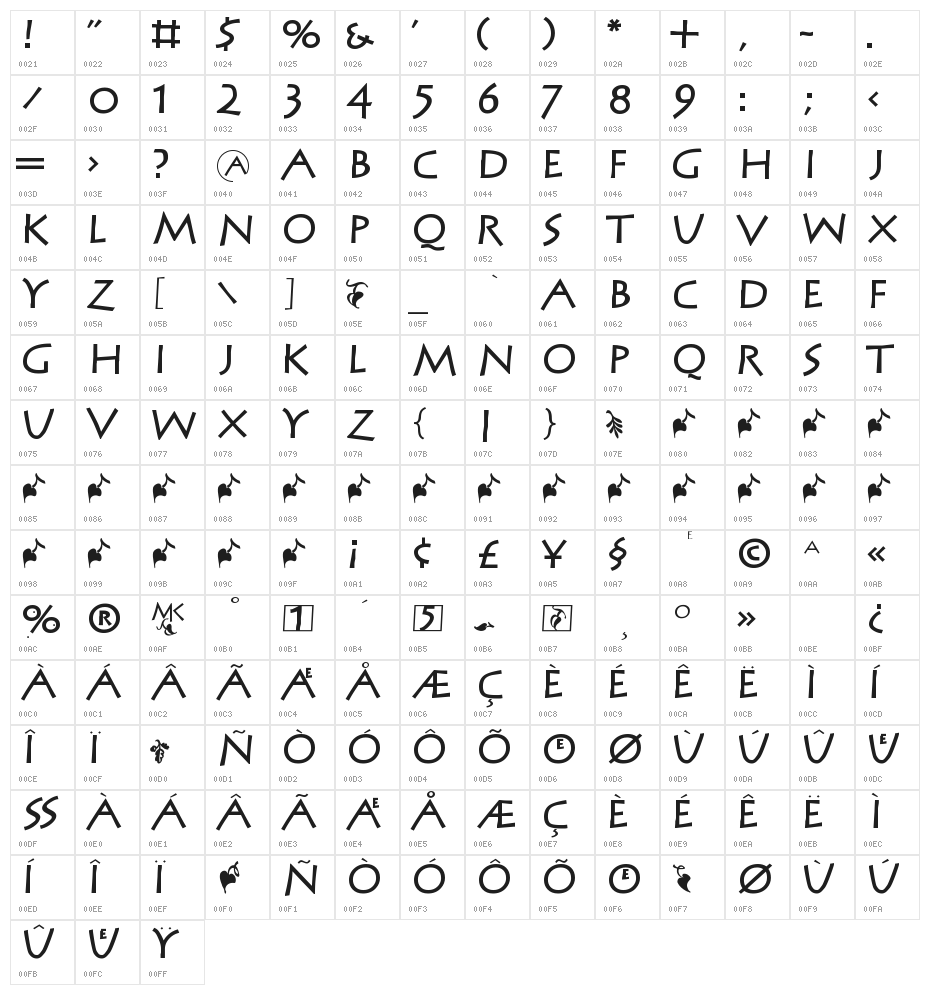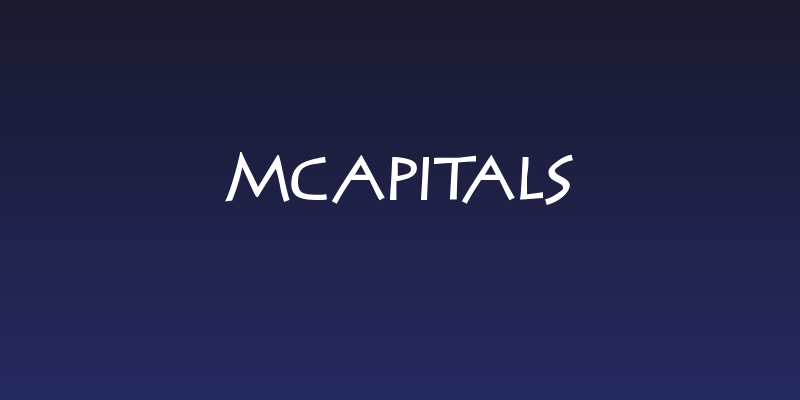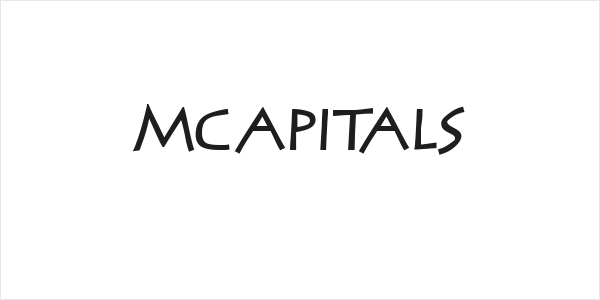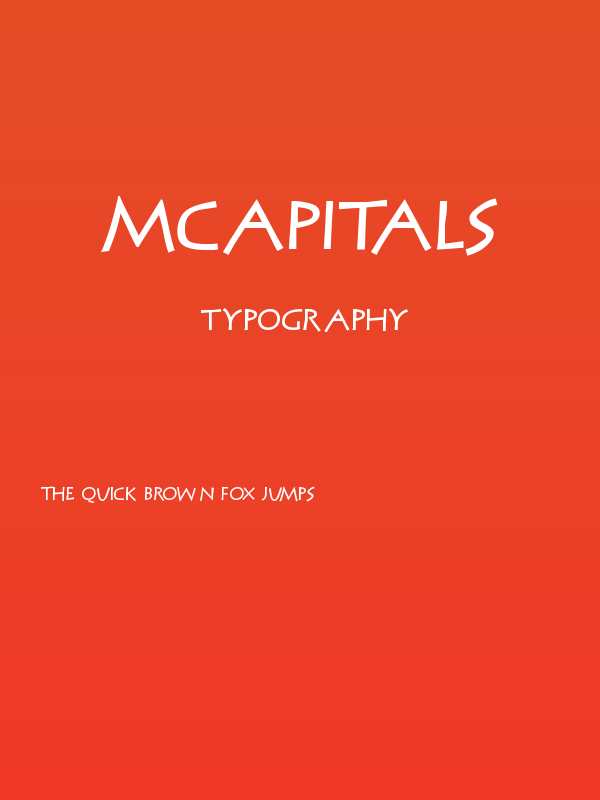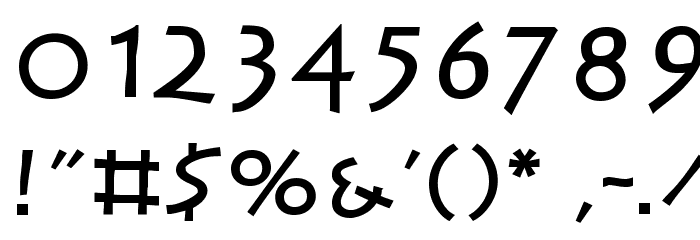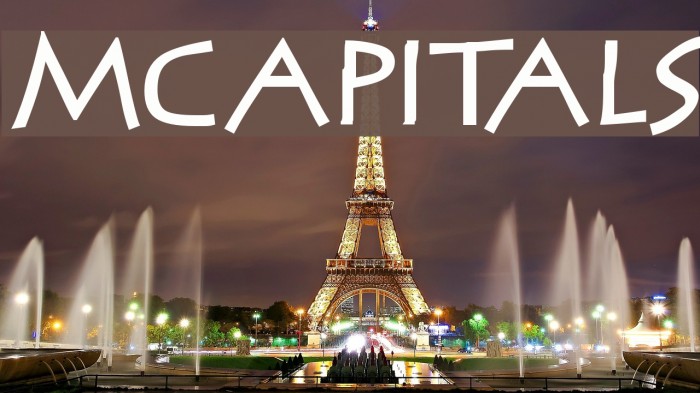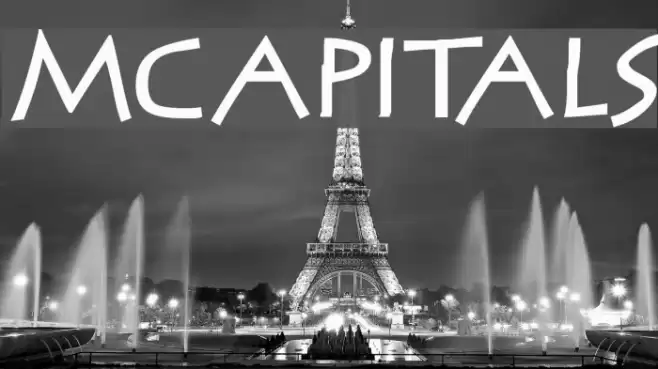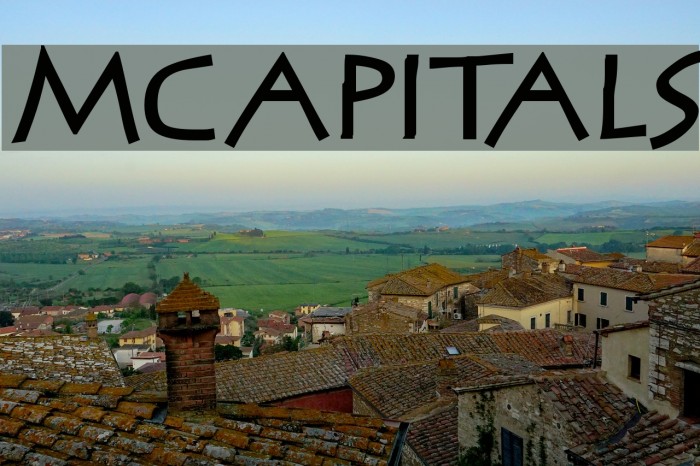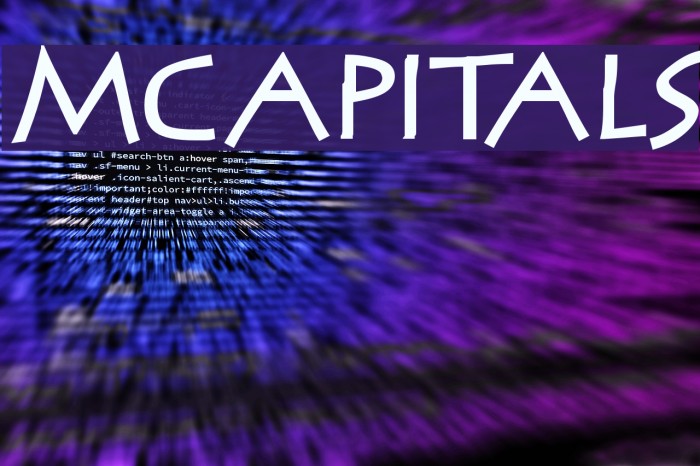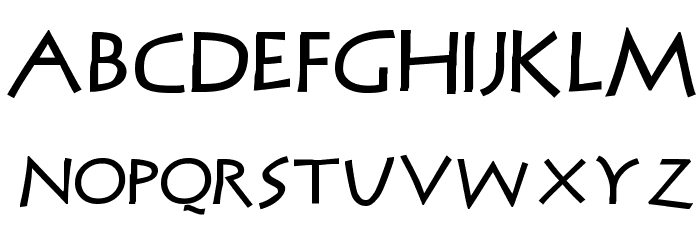
MCapitals Font
MCapitals Description
This font features a unique, artistic style with a playful and slightly irregular form. The characters have a hand-drawn appearance, with varying stroke widths that add a dynamic and lively feel. The uppercase letters are bold and prominent, while the lowercase letters maintain a consistent style that complements the uppercase. The numerals are distinct and easily readable, matching the overall aesthetic of the font. Special characters are creatively designed, adding to the font's whimsical nature. This font is ideal for projects that require a touch of creativity and individuality.
| Overall Style | Artistic, Playful |
| Proposed Projects | Ideal for children's books, creative posters, artistic branding, and playful invitations. |